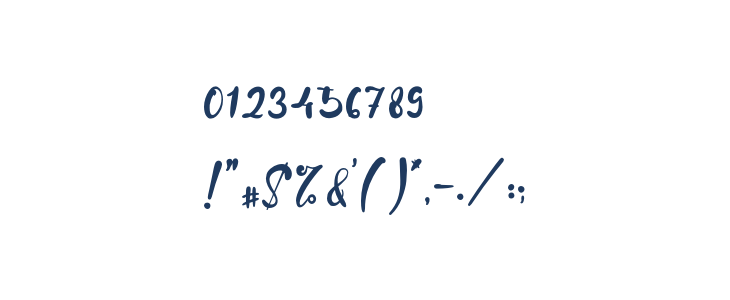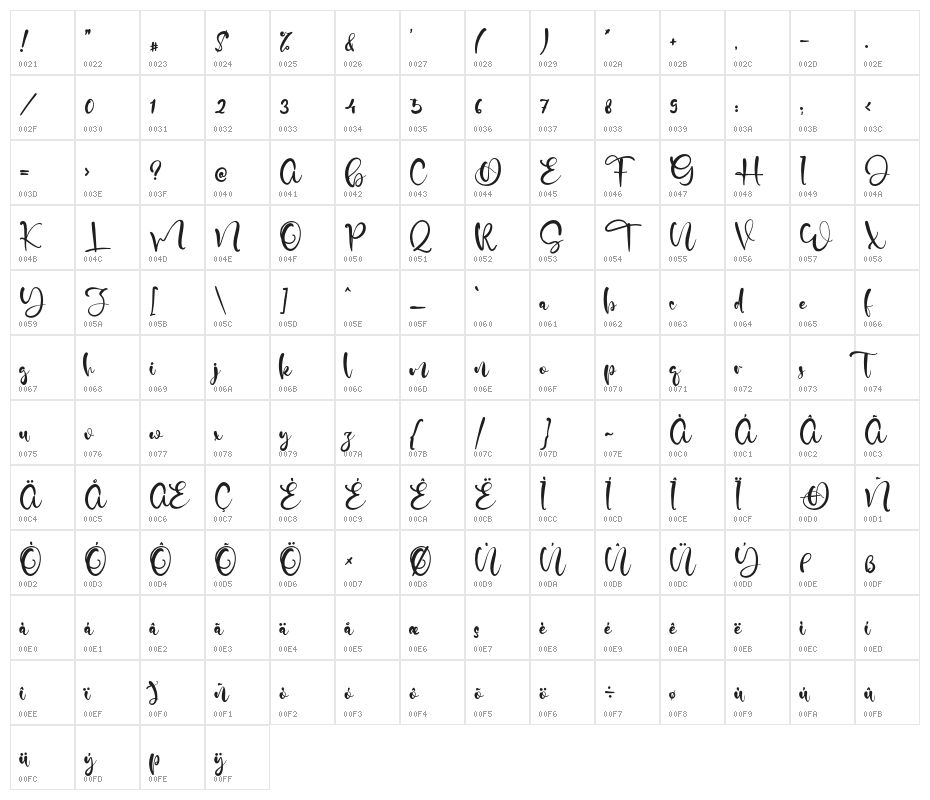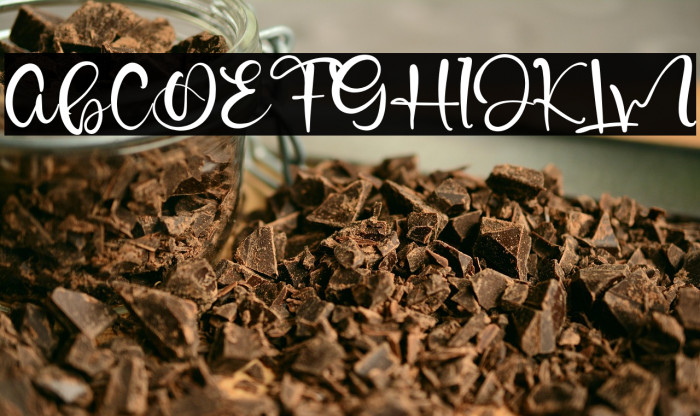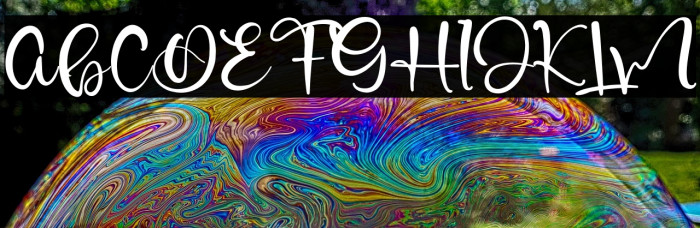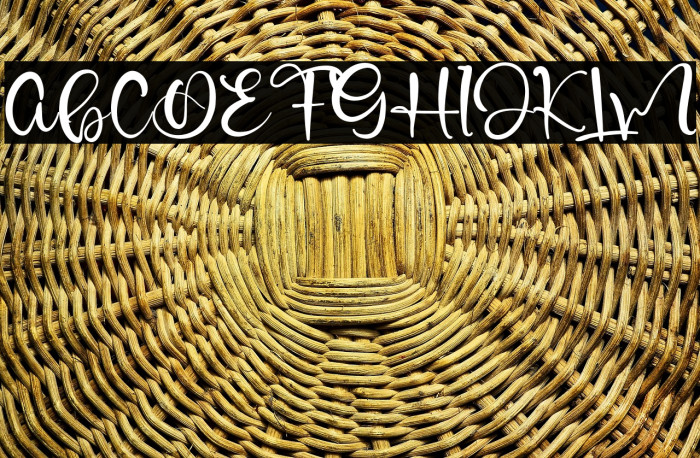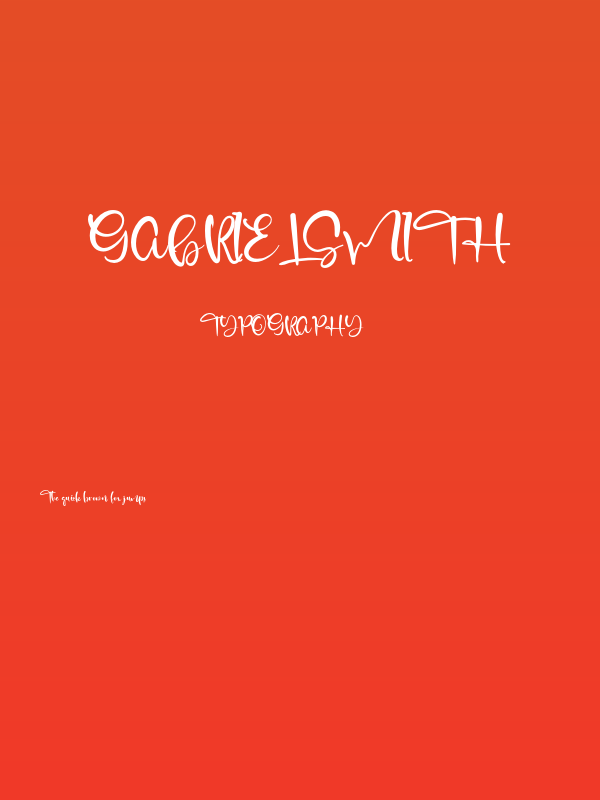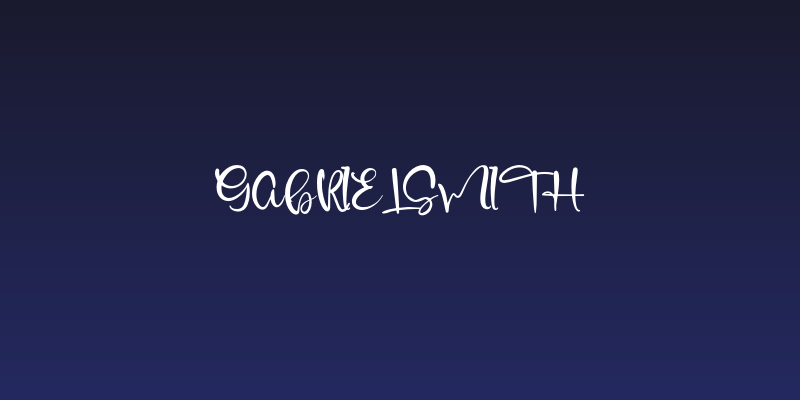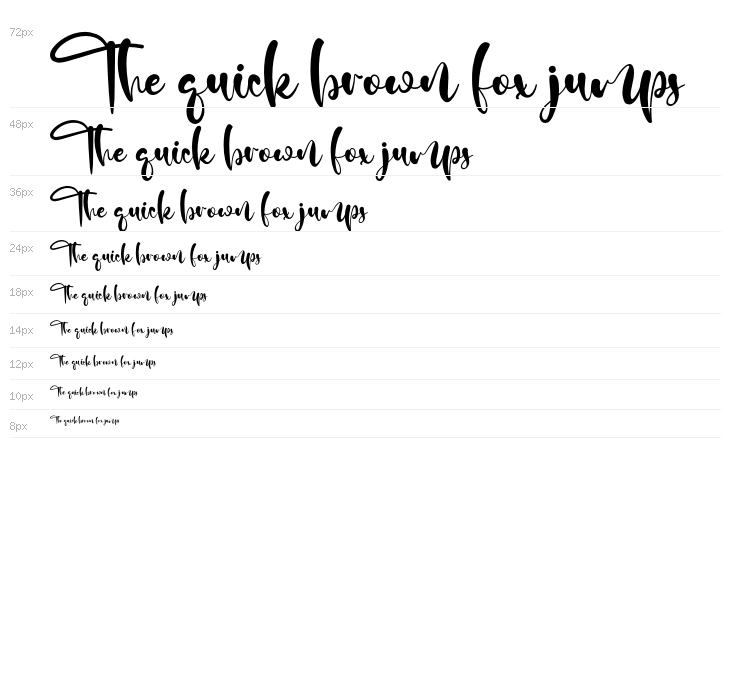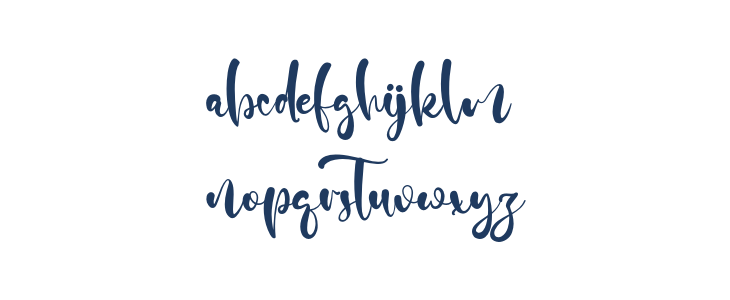
GabrielSmith Font
GabrielSmith Description
This font features a lively and expressive script style, characterized by its flowing, interconnected letterforms that convey a sense of elegance and creativity. The uppercase letters are bold and dynamic, with a playful yet sophisticated flair, while the lowercase letters maintain a consistent rhythm and fluidity. The numerals are distinct and easily readable, complementing the overall aesthetic. Special characters are thoughtfully designed to match the font's whimsical nature, making it suitable for artistic and decorative applications. The font's unique style is perfect for projects that require a personal touch, such as invitations, greeting cards, and branding materials.